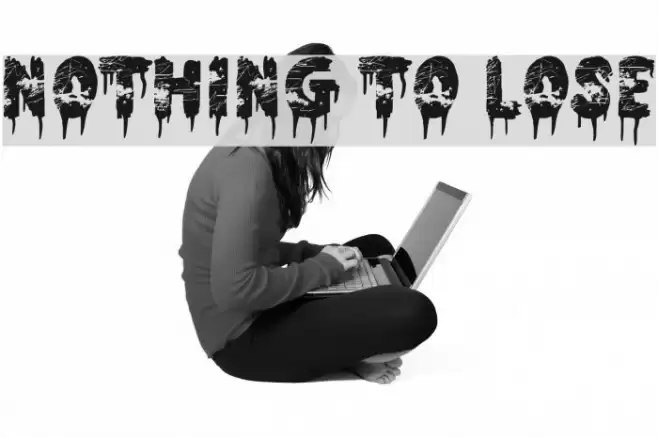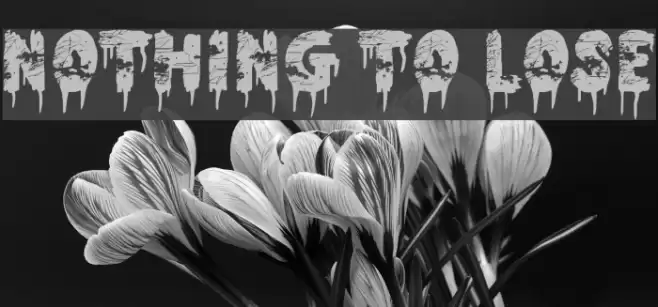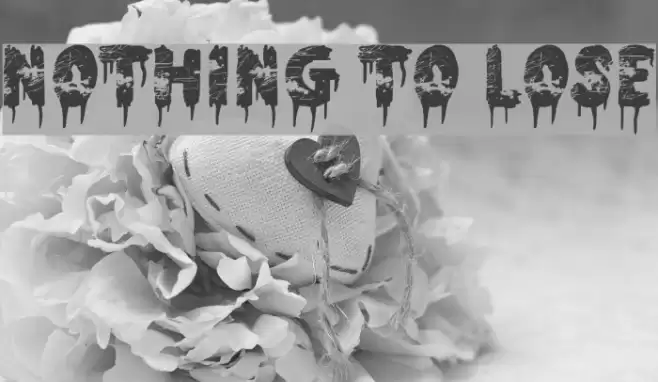
Nothing To Lose Font
Nothing To Lose Description
This font features a bold and dramatic style with a distressed, grunge-like appearance. Each character appears as if it is dripping or melting, adding a sense of movement and chaos. The texture is rough and uneven, giving it an edgy and rebellious feel. The uppercase and lowercase letters maintain a consistent style, with the numbers and special characters following suit. This font is highly decorative and makes a strong visual impact, ideal for projects that require a bold statement.
A bold, distressed font with a dripping, grunge-like appearance from Uncategorized fonts.
- Proposed Projects: Ideal for horror-themed designs, music album covers, posters, and any project needing a bold, edgy look.